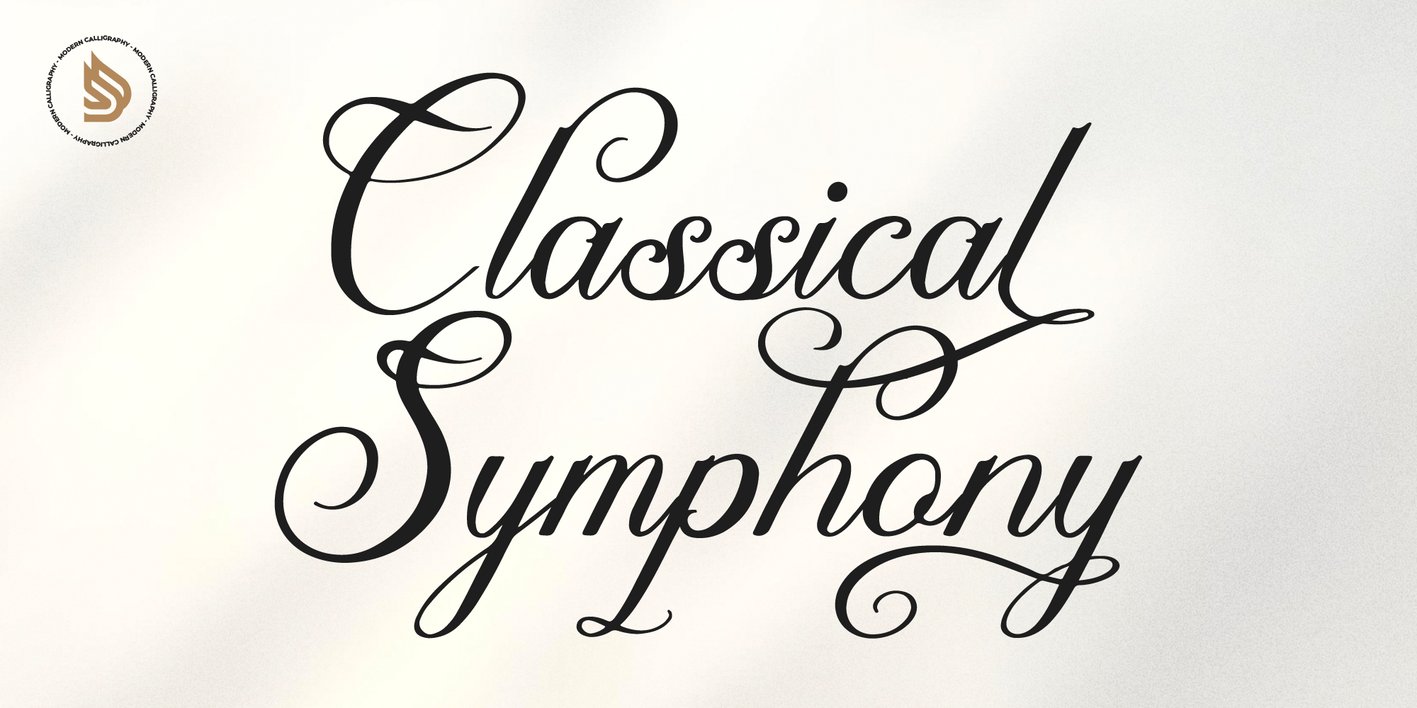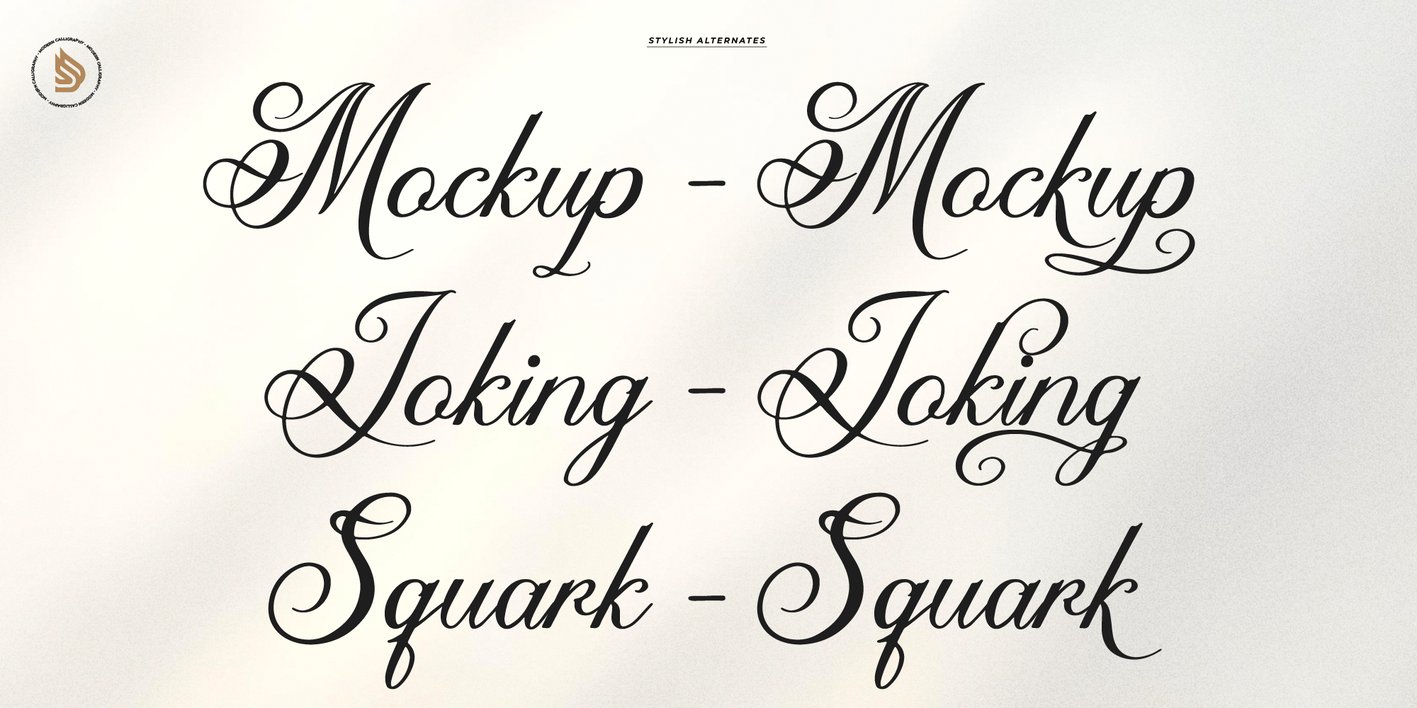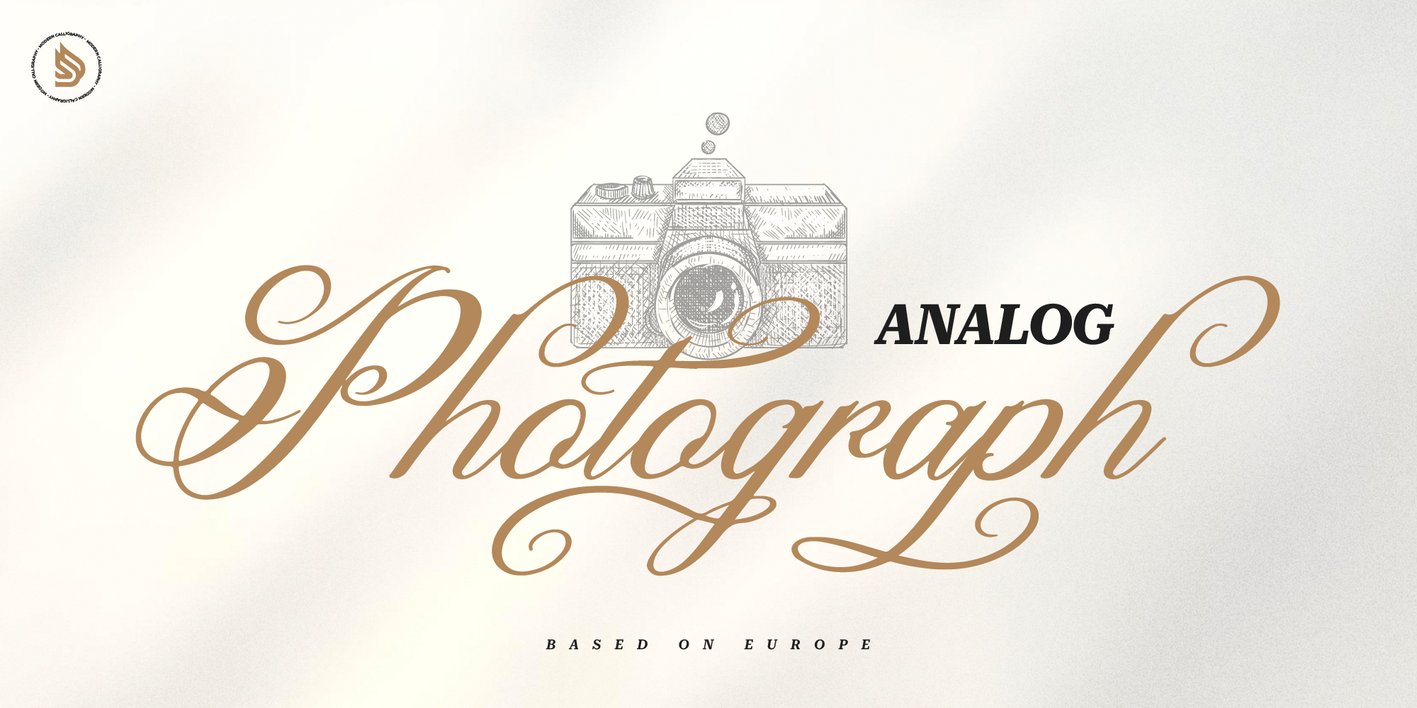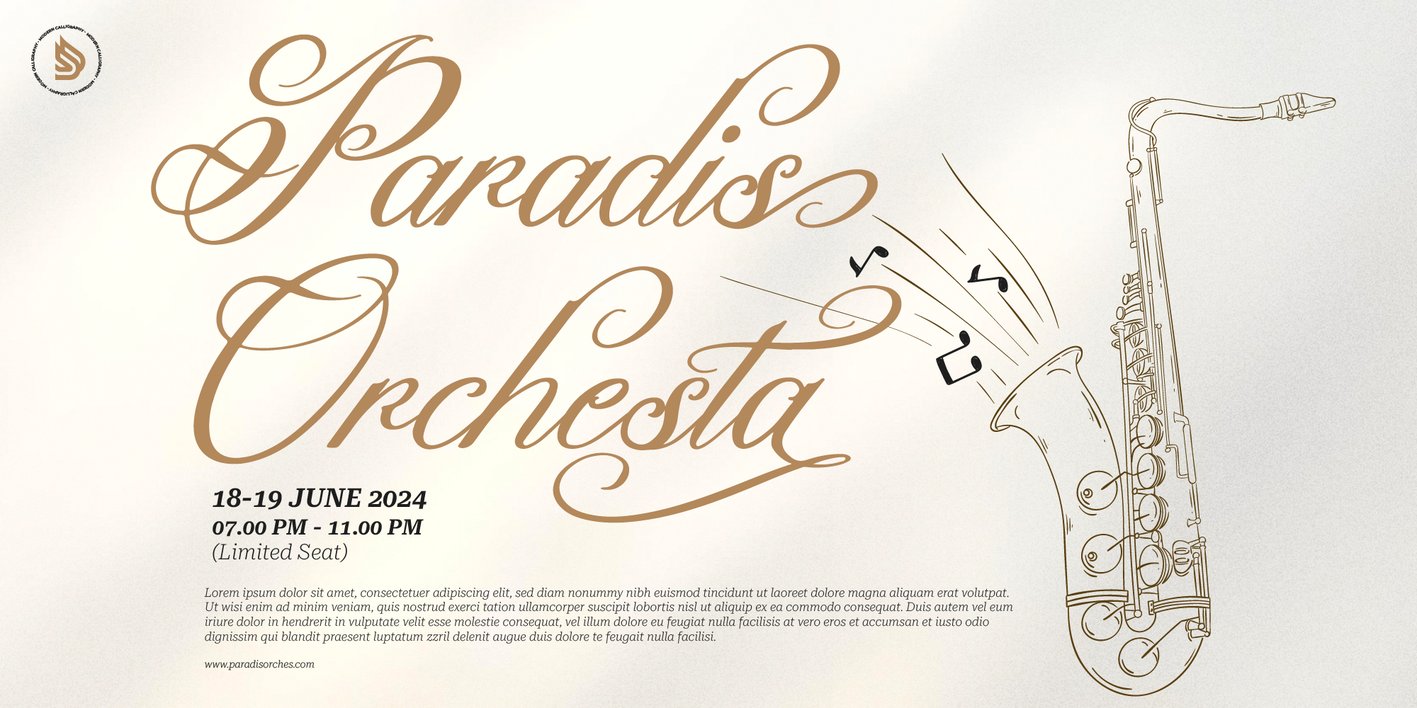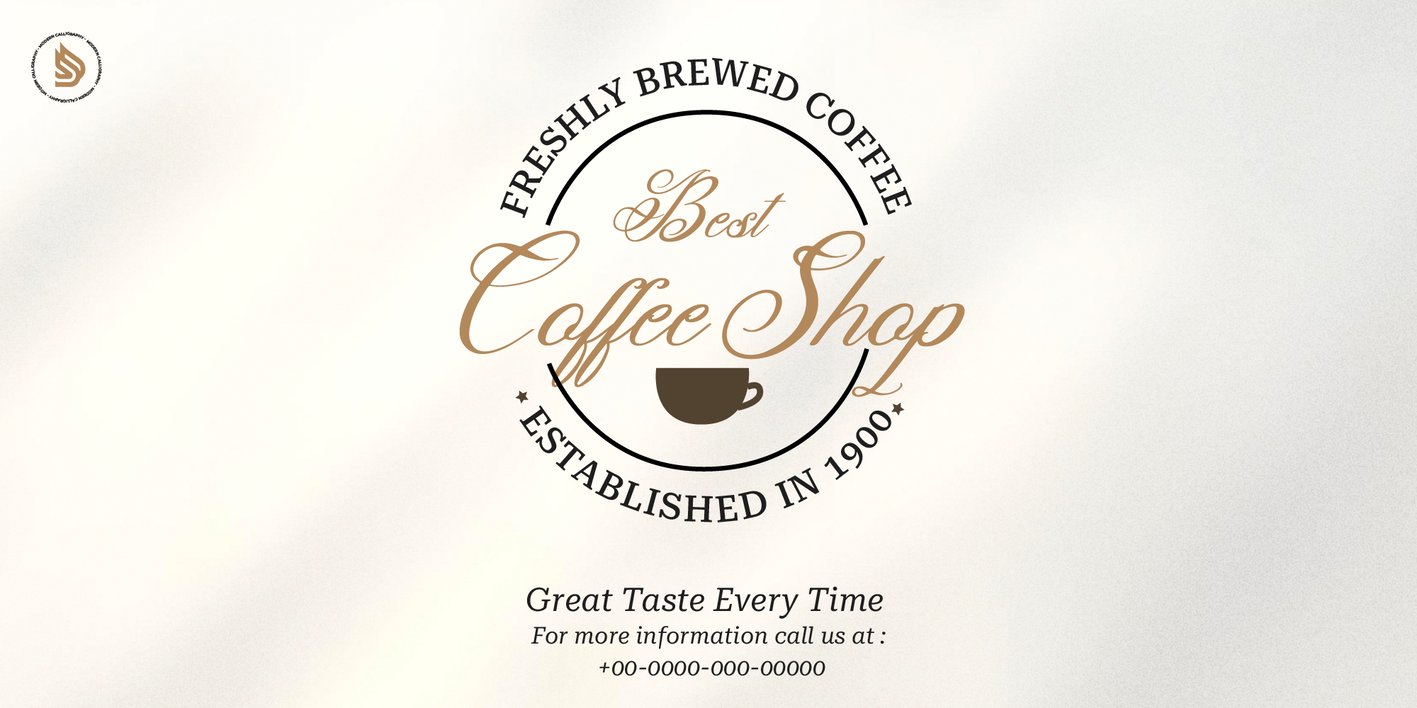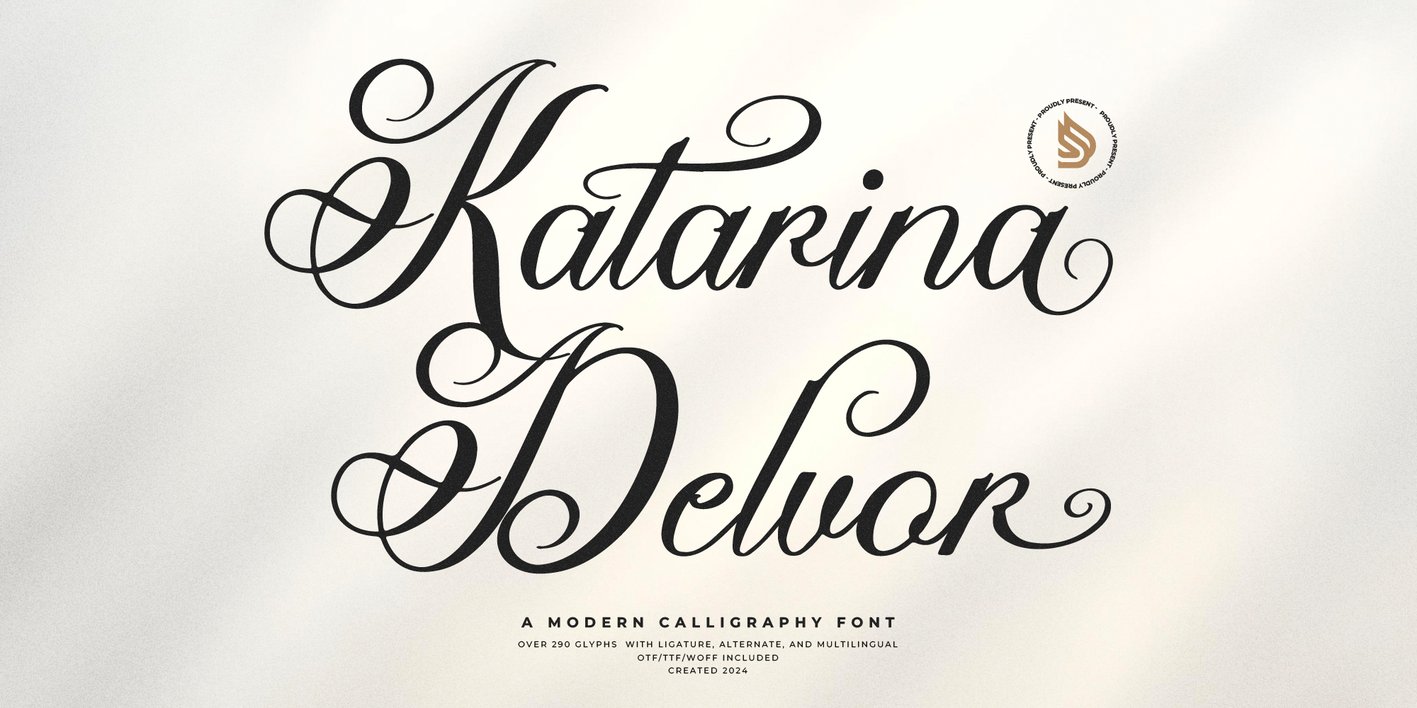
Katarina Delvor Font
Katarina Delvor | Modern Calligraphy Font, from Gracetypestudio, suitable for any projects such as: logos, branding projects, homeware designs, product packaging, mugs, quotes, posters, shopping bags, t-shirts, book covers, name card, invitation cards, greeting cards, label, photography, watermark, special events, and all your other lovely projects that need a beautiful script taste.